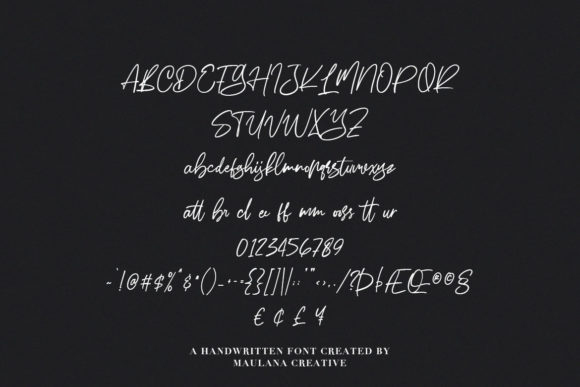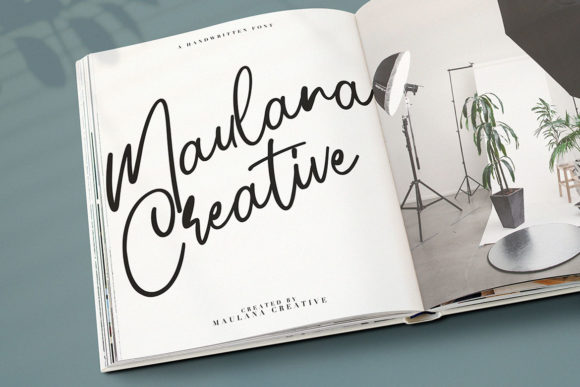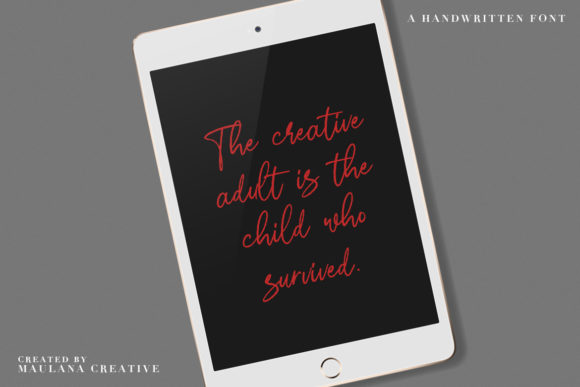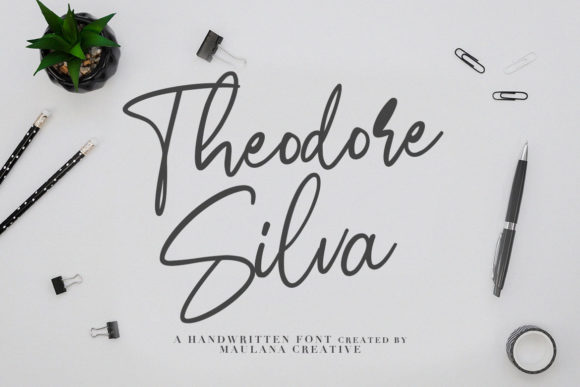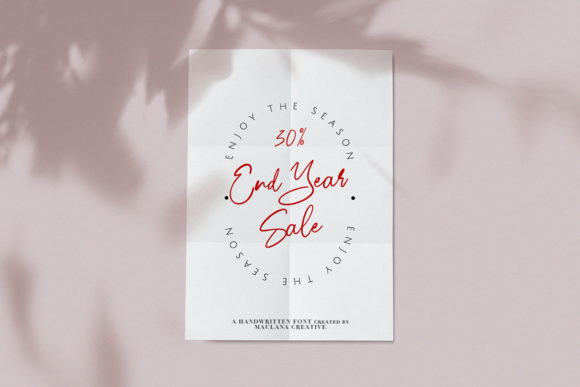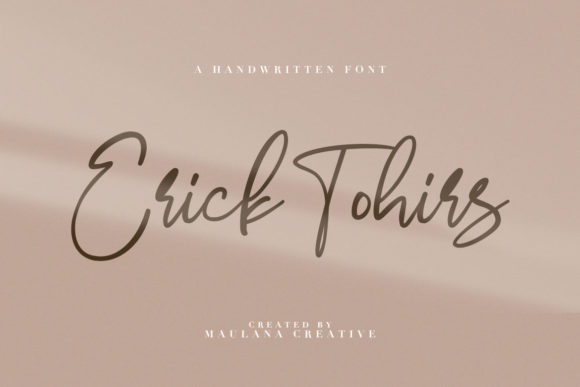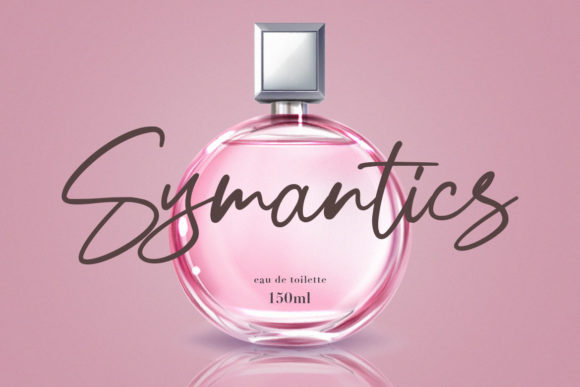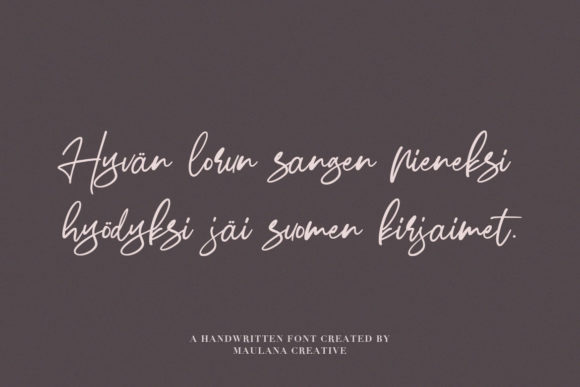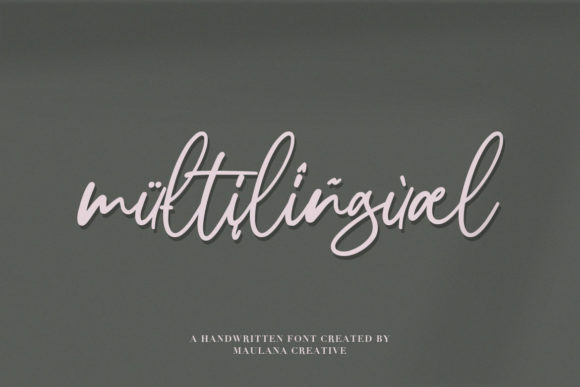
Agetien Font
About Agetien Font
Agetien is a playful and authentic handwritten font that will turn any design project into a true eye-catcher. Get inspired by its authentic charm!